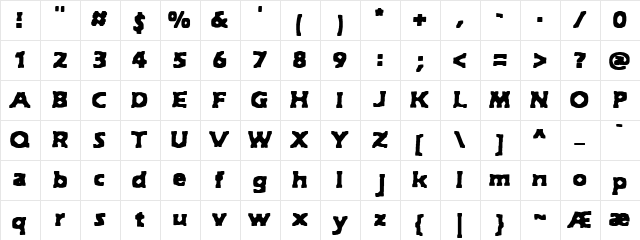
Hyde (BRK) Regular Font Preview
Hyde (BRK) Regular
Design Context for Hyde (BRK) Typeface
Hyde (BRK) is a composed and adaptable typeface that performs quietly and consistently across a wide range of design contexts.